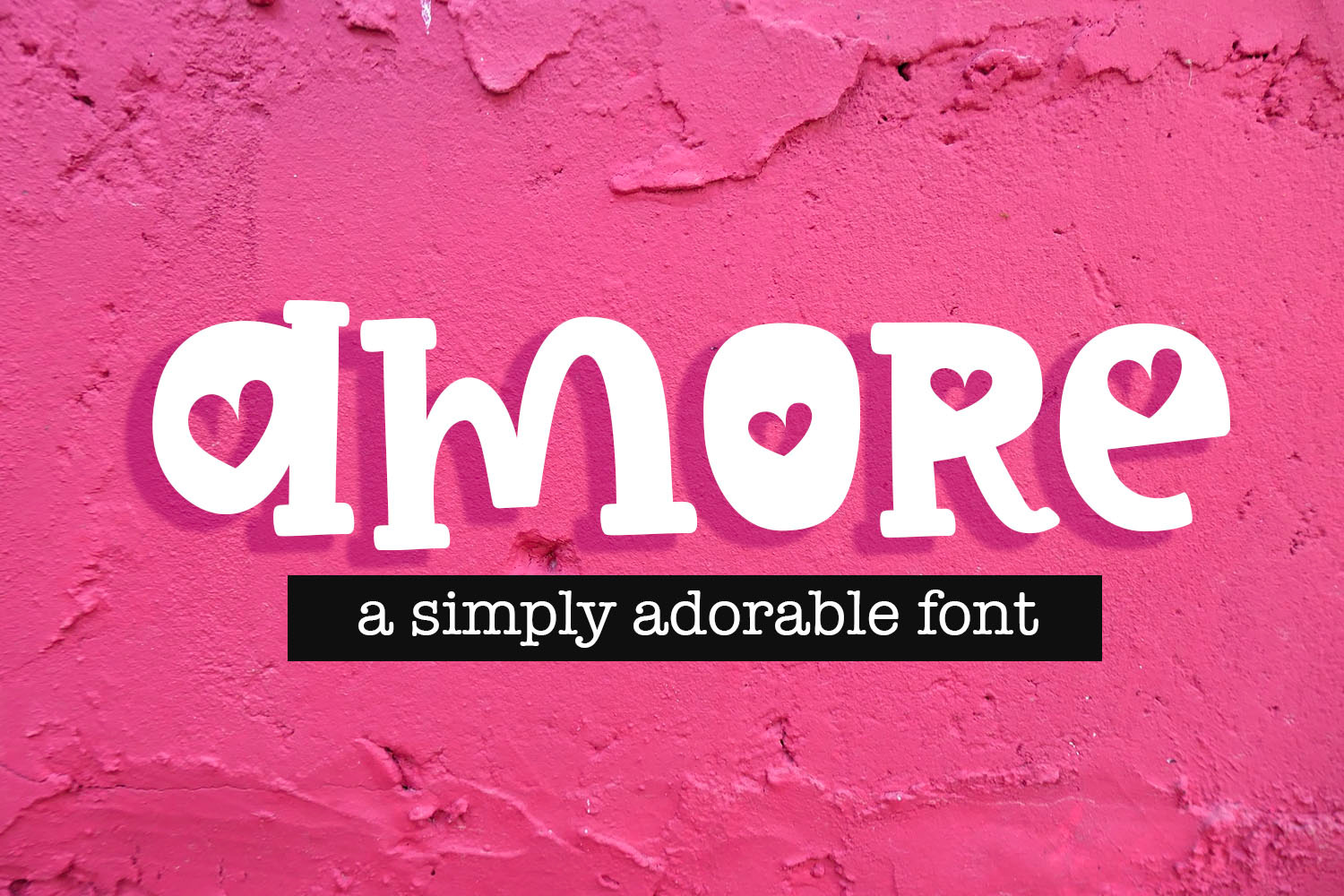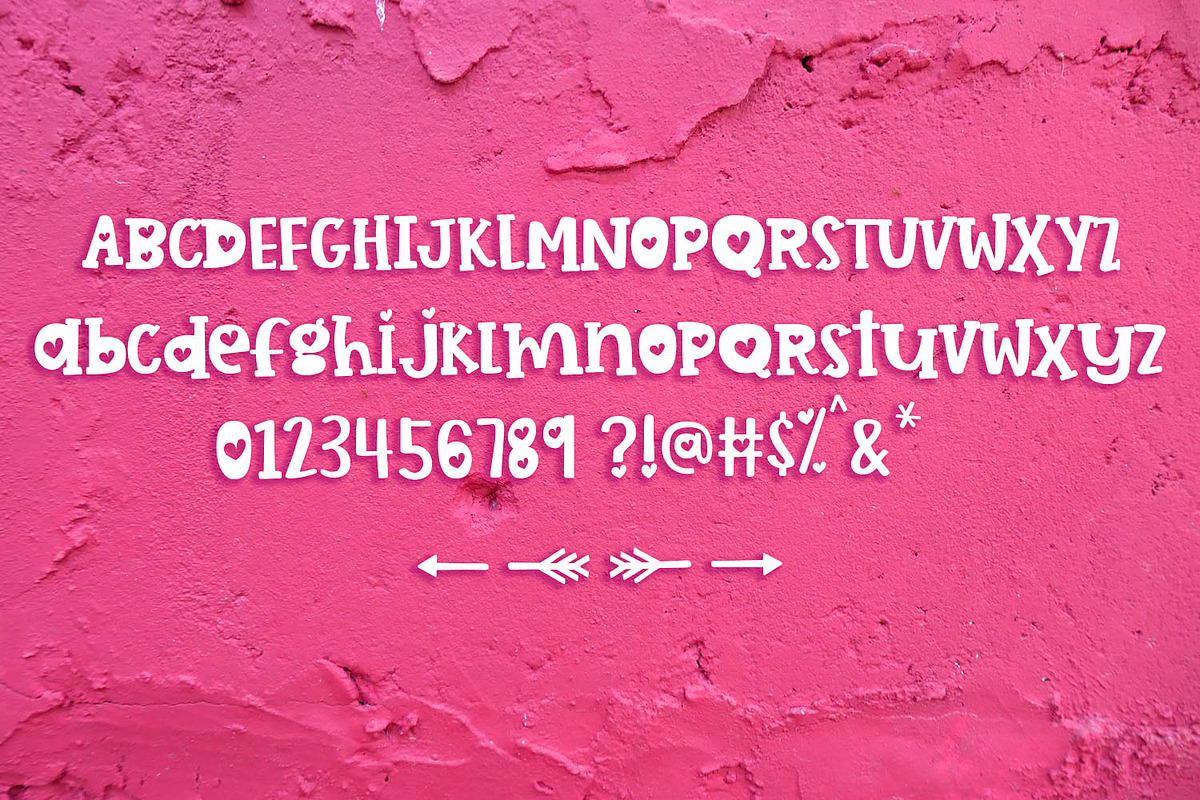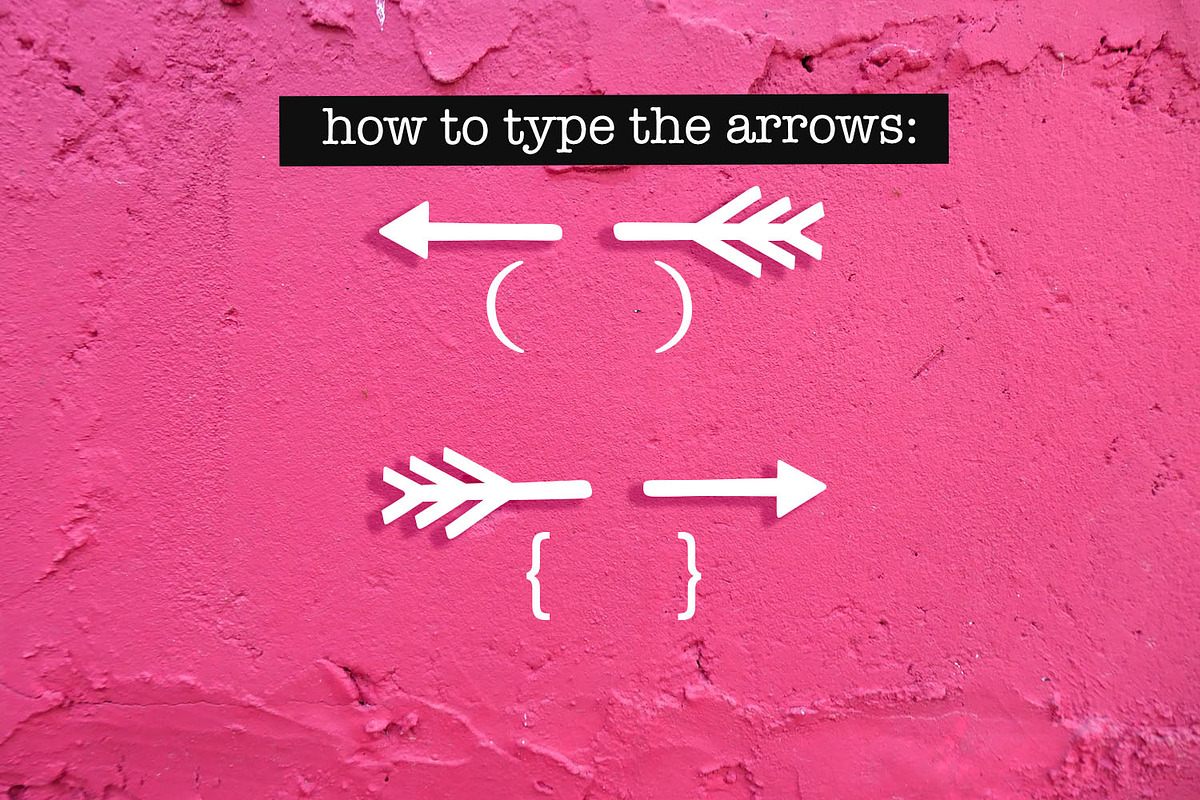
Amore Valentine Font
Introducing Amore! Amore is a bold handwritten font with hearts and arrows, making it a great font for Valentines Day, feminine, or romantic designs!